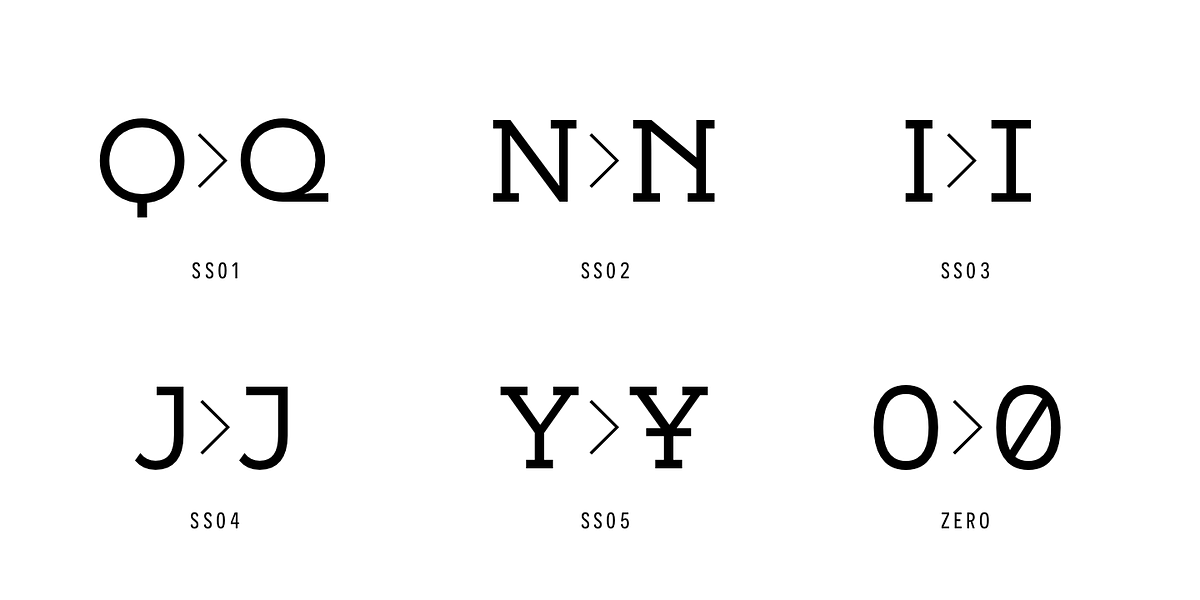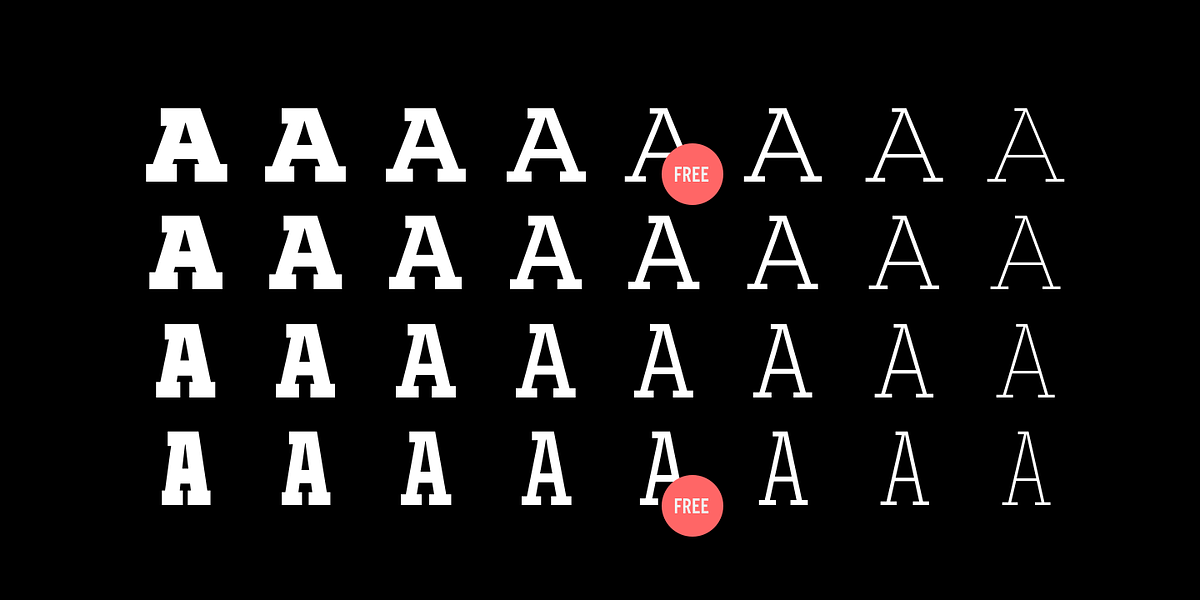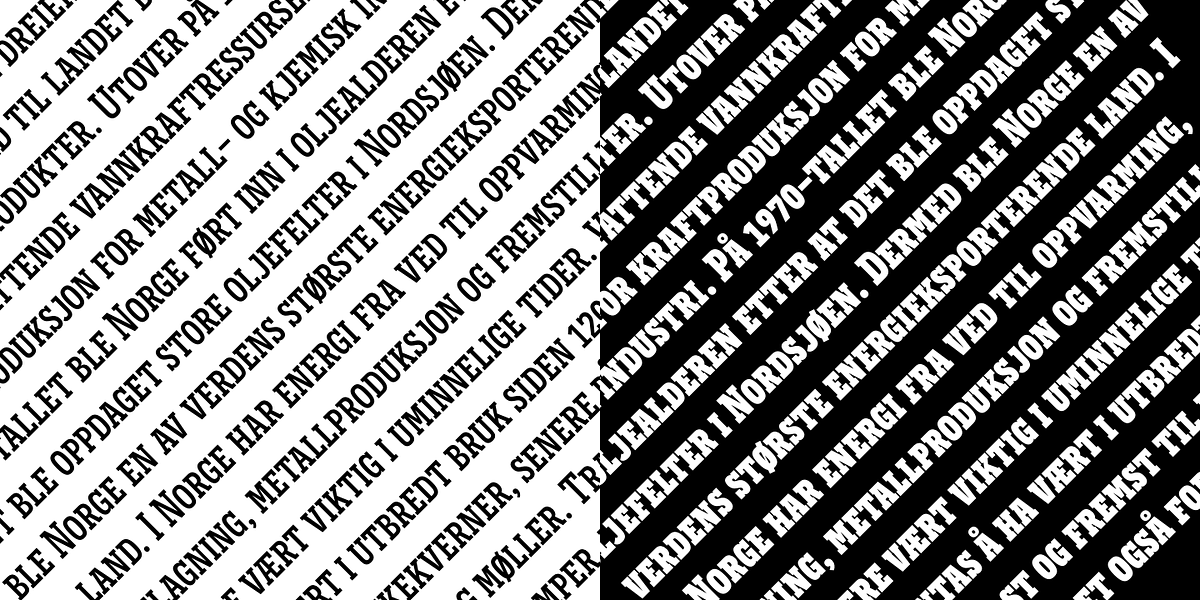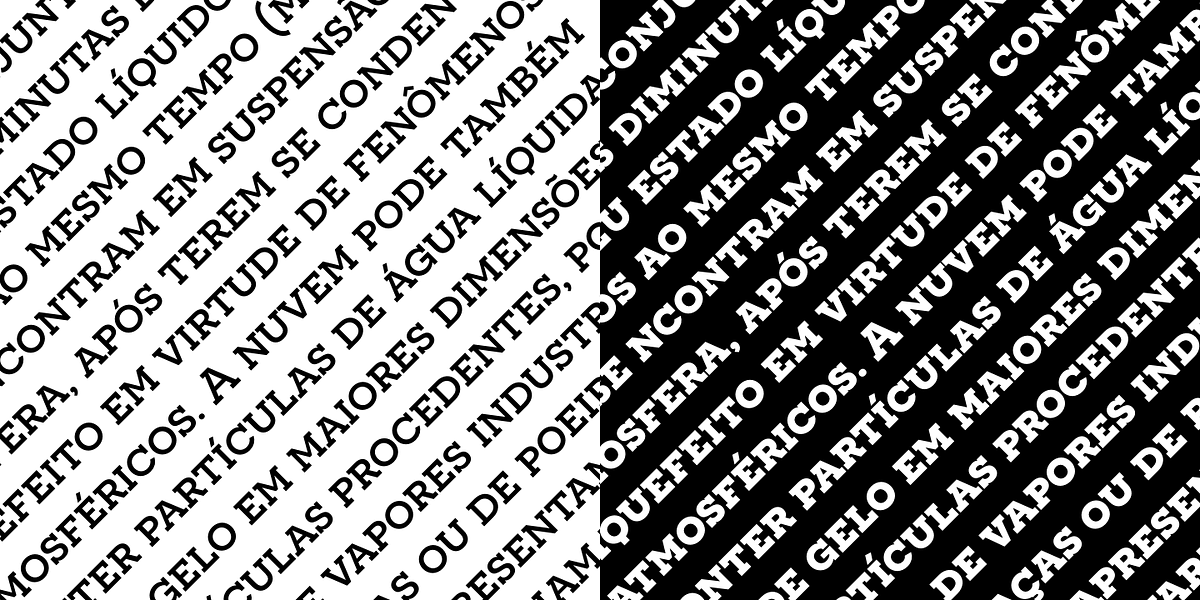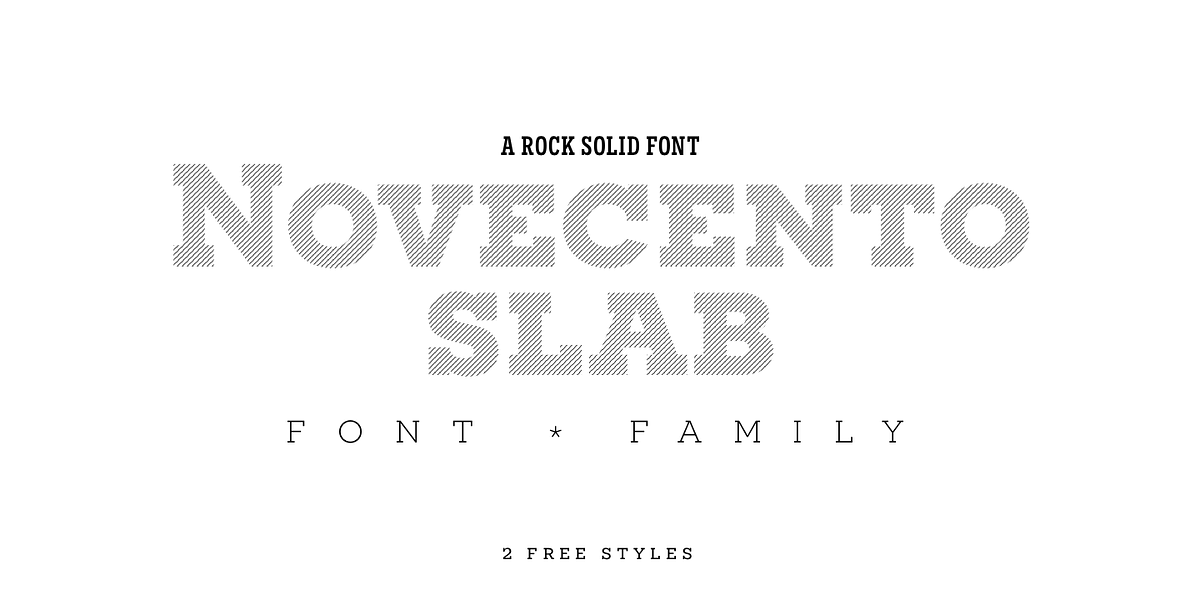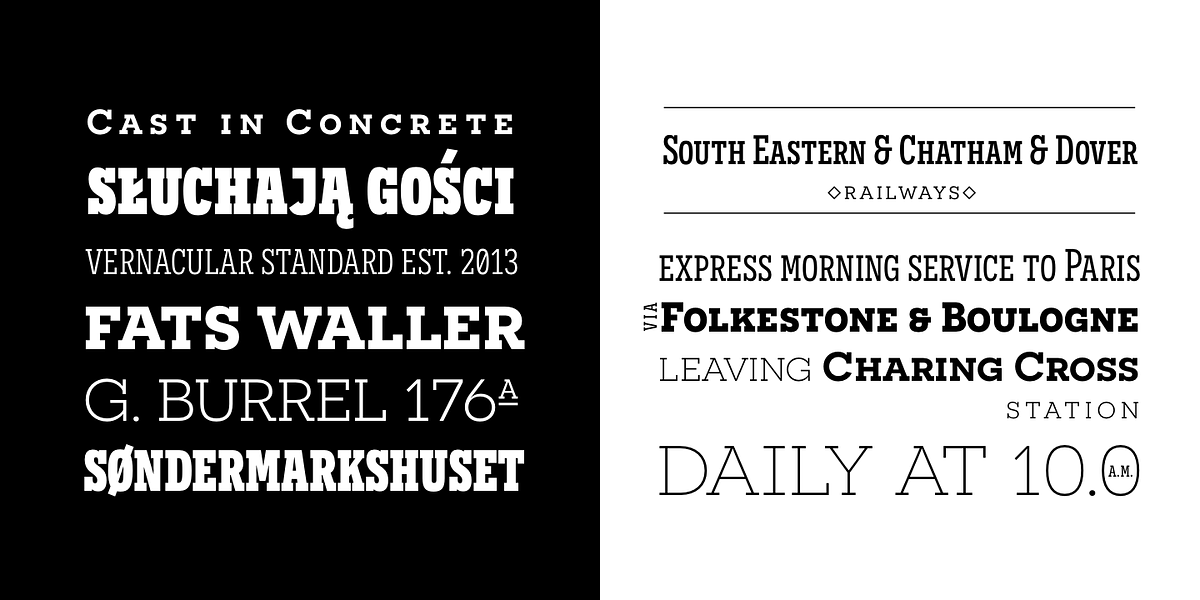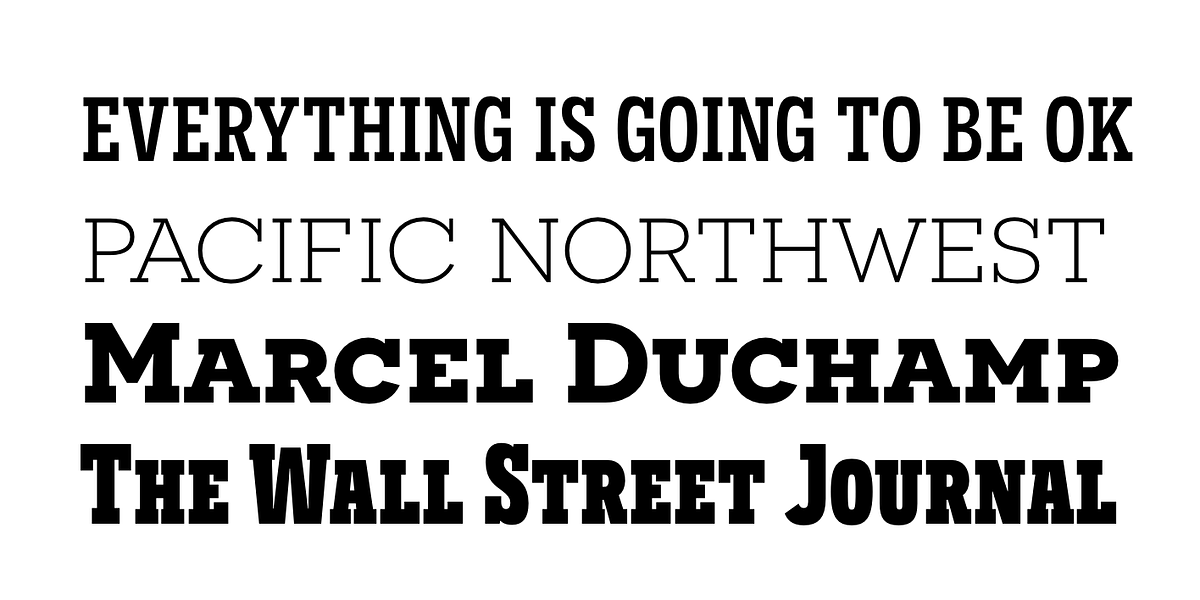
Novecento Slab
Novecento Slab is the “slab serif” companion of Novecento Sans, a font family inspired on european typographic tendencies between the second half of 19th century and first half of the 20th.
This font face is designed to be used mostly for headlines, visual identities or short sentences, both in big and small sizes. Novecento Slab family comes in 32 styles, speaks 76 latin based languages, has 590 glyphs and 16 stylistic opentype features for advanced typography.